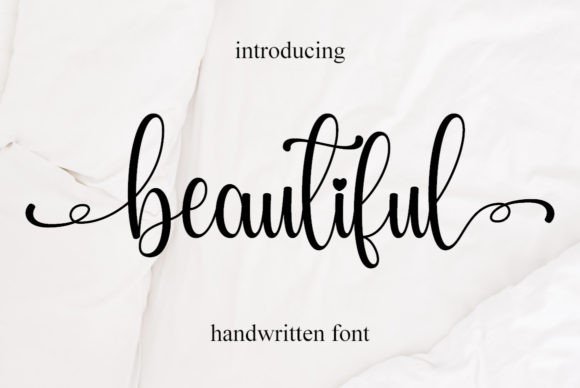
Introducing the Beautiful Font - the best font for stockings Cricut, created by the renowned Hardiboy Design. With its stylish and elegant handwritten script, this font is perfect for adding a touch of class to any design.
Imagine using this font for your wedding invitations and thank you cards. The Beautiful Font will elevate your messages with its exquisite style, making them even more memorable for you and your guests.
Looking for the perfect font for your business logo or card? Look no further than the Beautiful Font. Its handwritten touch will make your brand stand out, and its PUA encoding means that you can easily access all of its unique glyphs and alternates.
But the Beautiful Font isn't just for formal occasions. It's also perfect for adding a personal touch to your everyday designs, such as quotes, greeting cards, and more.